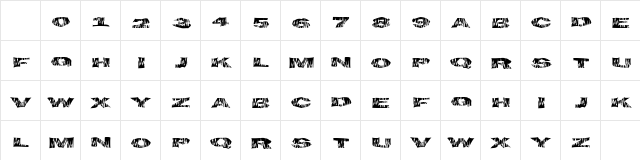
FlameTime is a composed and adaptable typeface that performs quietly and consistently across a wide range of design contexts.
Pro Tip: Use FlameTime in both headline and body roles to test its range before committing to a single application.